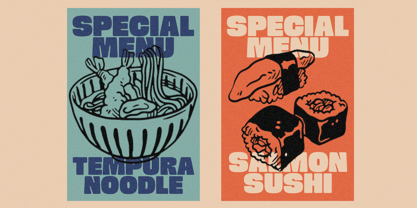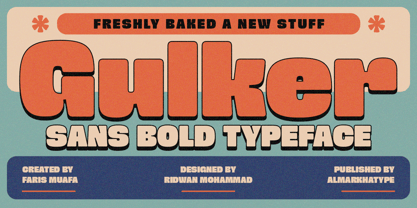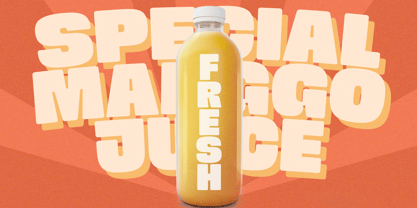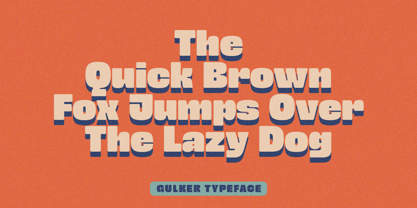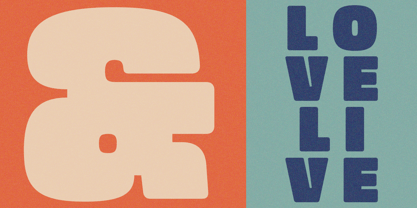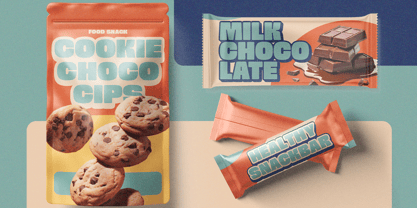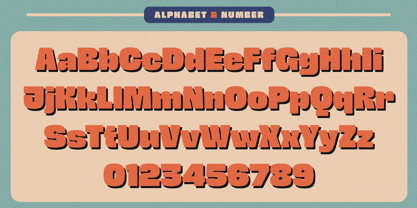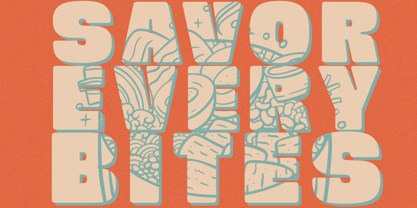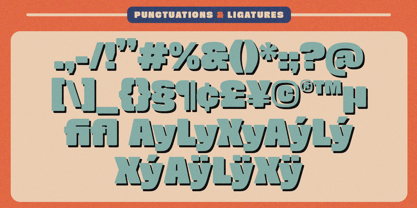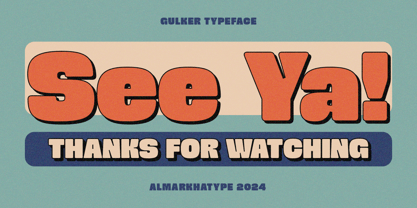
Gulker
von Almarkha Type
Die Schriftfamilie Gulker wurde von Abdul Malik Wisnu entworfen und von Almarkha Type veröffentlicht. Gulker enthält 1 Stile. Mehr über diese Familie
Gulker is a bold and dynamic display font that brings energy and playfulness to any design. Featuring both uppercase and lowercase letters, this font is ideal for projects that need a lively and fun touch. Its striking style makes it perfect for display designs where you want to create a sense of excitement and creativity. Built with a retro nuance this font has a wide design purpose. Whether used on its own or combined with other fonts, Gulker adds a vibrant flair to your work, making it a great choice for designers looking to experiment and elevate their graphic design projects.
Designer: Abdul Malik Wisnu
Foundry: Almarkha Type